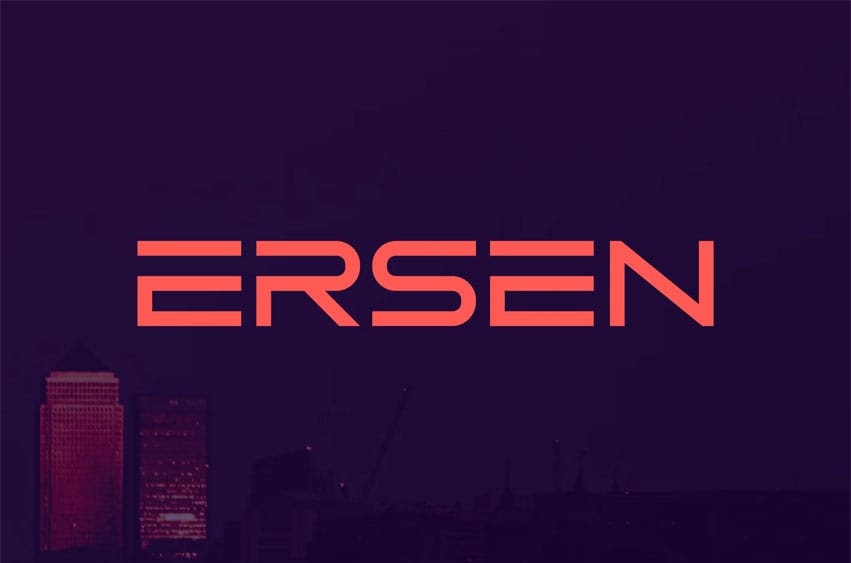
Ersen Font Is A Modern Techno Logo Font. Can Make It Easier To Convey The Message In Your Design. Font Is Suitable For logos, Labels, Badges, Branding, magazines, posters, Titles, Gigs, and Covers. Our Fonts Have Uppercase & Lowercase, numerals & Punctuation, and Opentype Features. For Amazing Designs, You Can Mix With Other Fonts As A Complement.